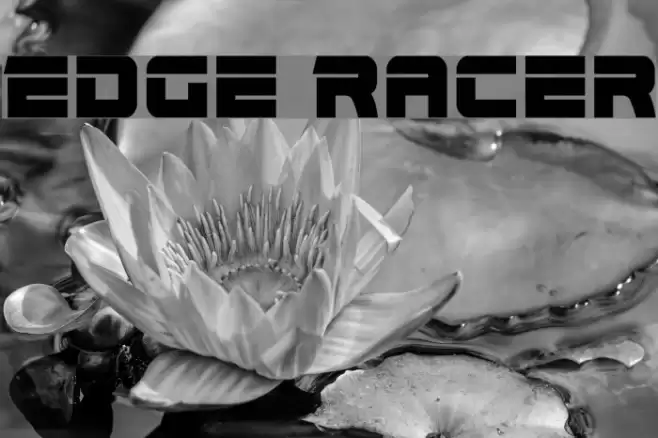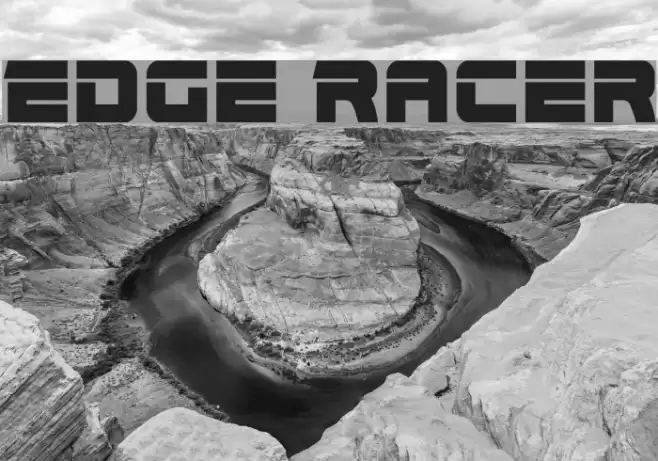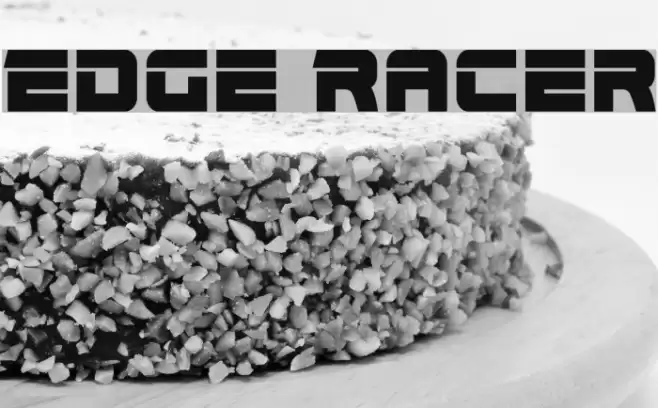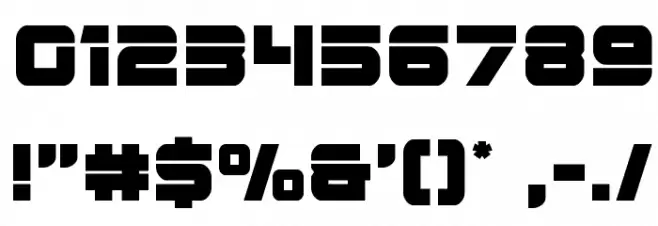
Edge Racer Font
Edge Racer Description
This font features a bold, futuristic design with a strong geometric structure. The characters are blocky and angular, with a distinct emphasis on horizontal and vertical lines. The uppercase and lowercase letters share a similar style, maintaining a consistent visual identity. The numerals and special characters are designed to match the boldness and angularity of the letters, making the font suitable for high-impact designs. The overall appearance is modern and dynamic, ideal for projects that require a sense of speed and technology.
A bold, futuristic font with geometric, angular characters from Sci-fi fonts.
- Proposed Projects: Ideal for technology branding, video game titles, automotive advertisements, and sports team logos.